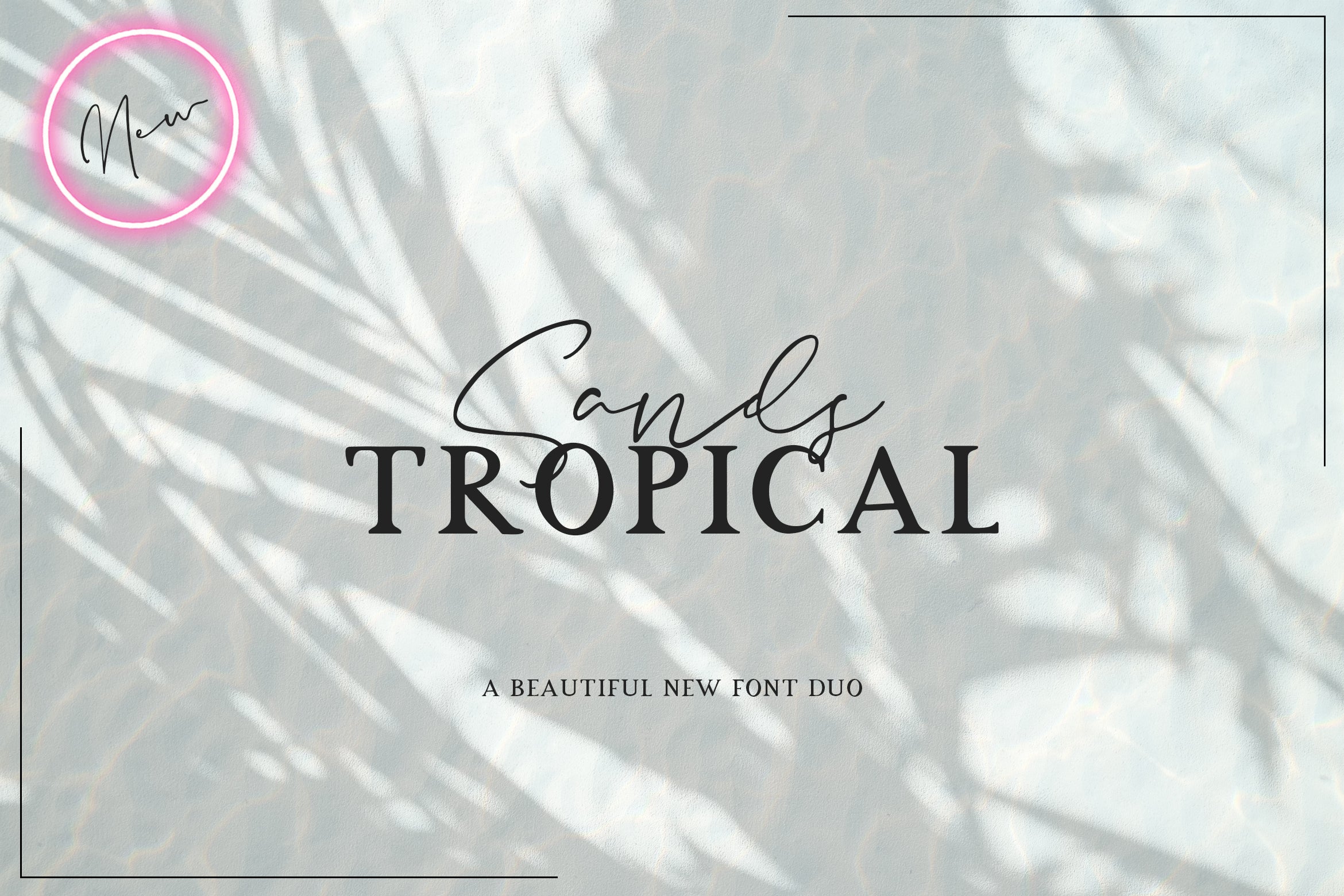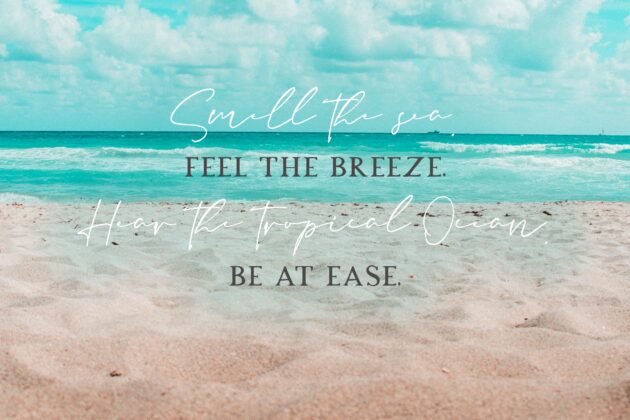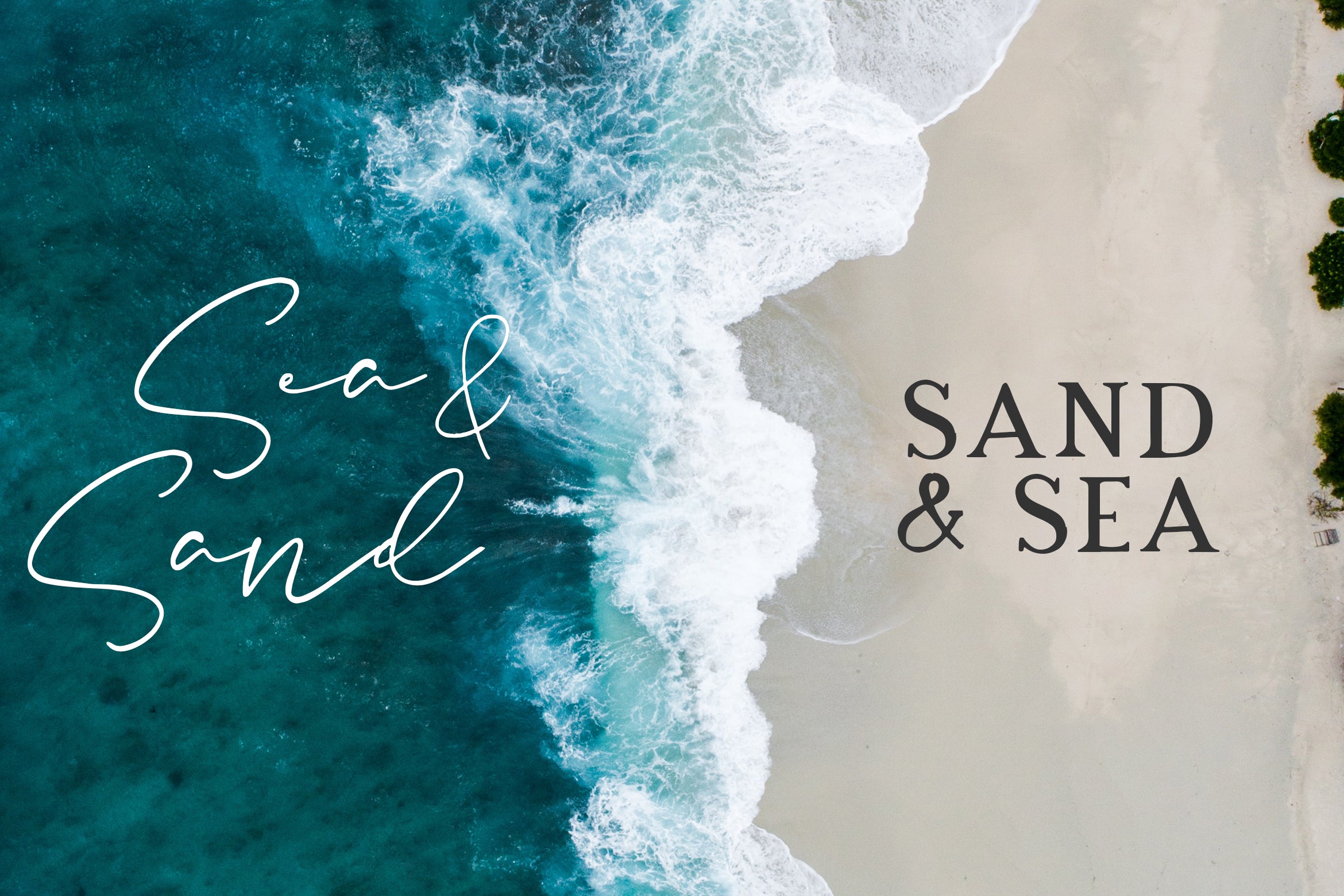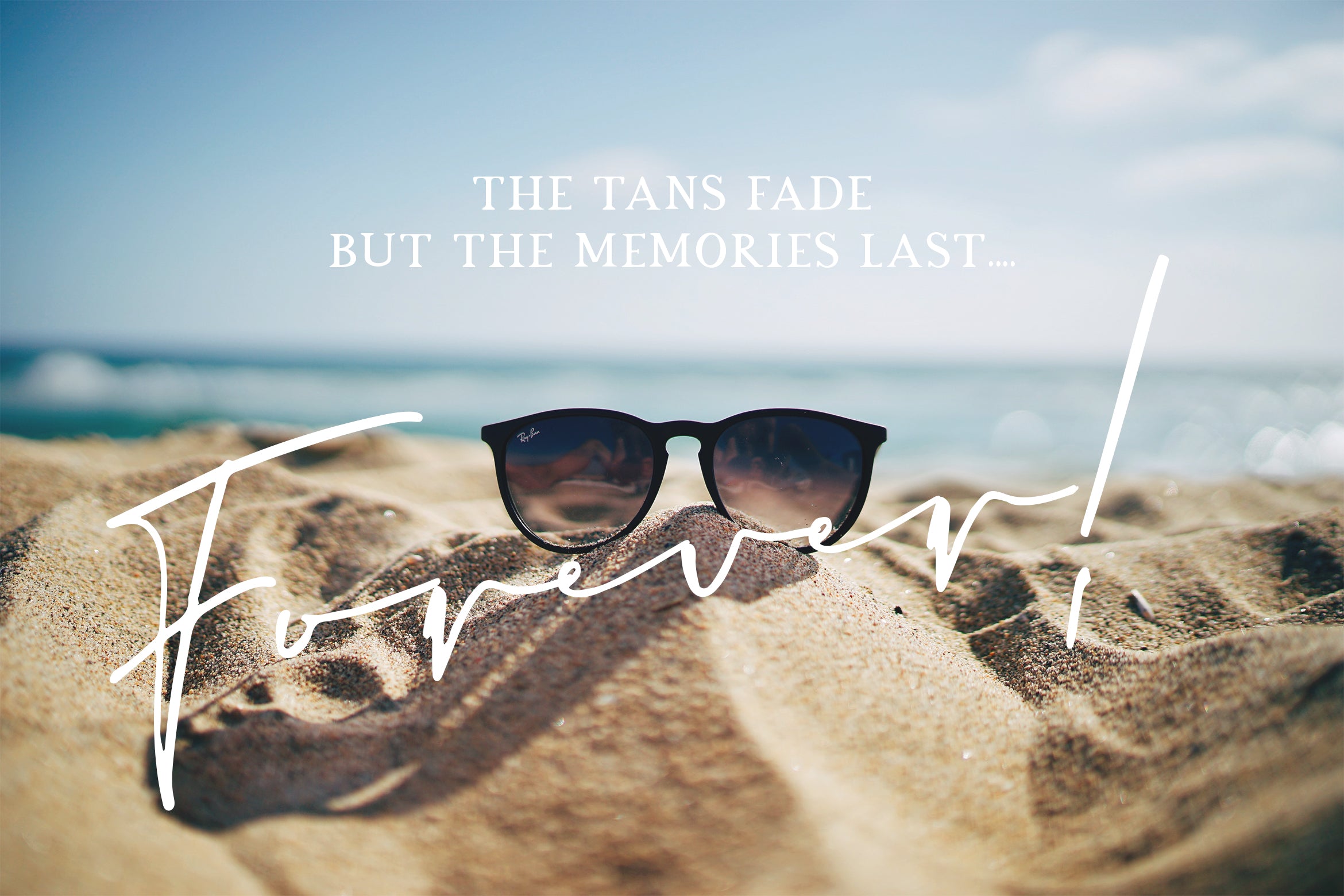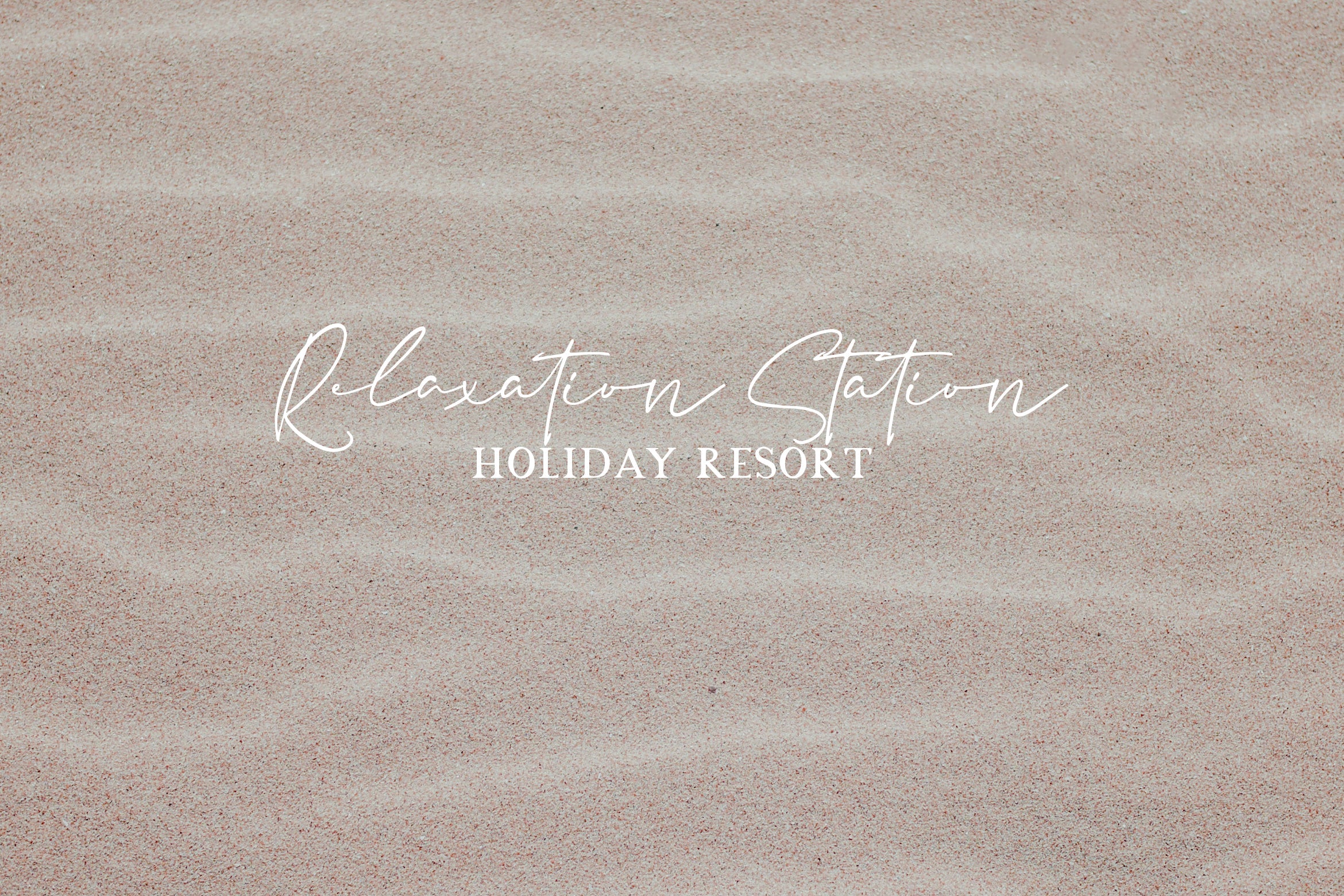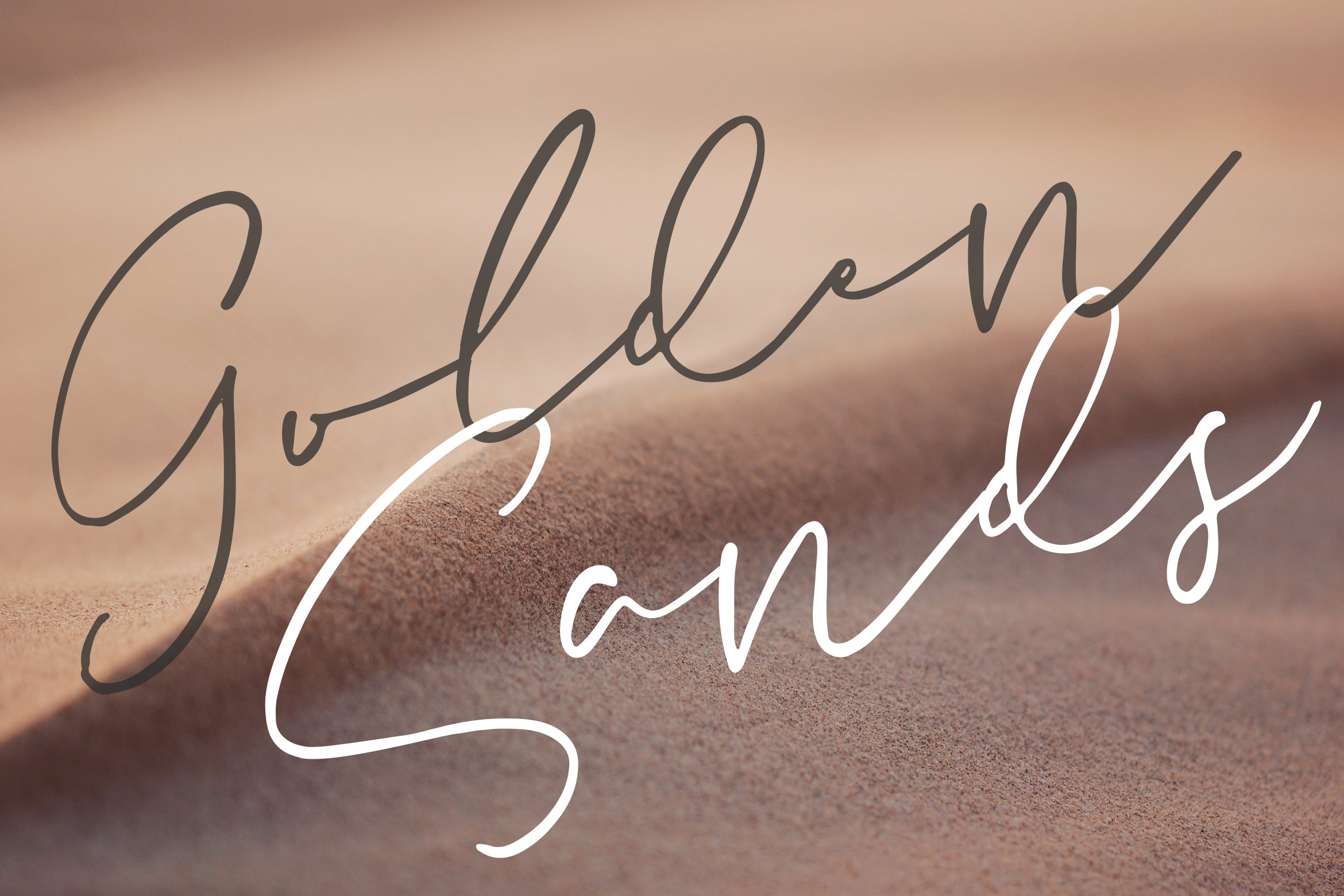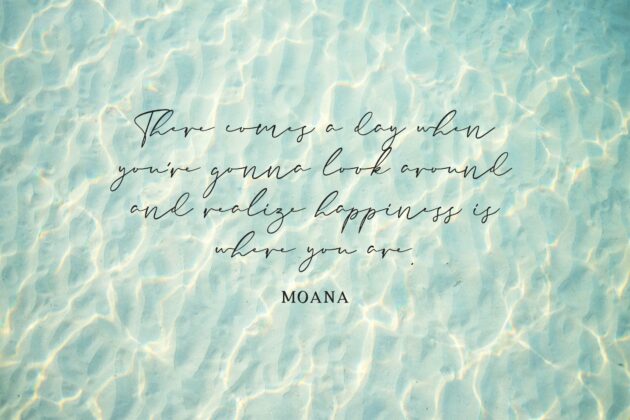
Sands Tropical Font Duo (Craft Fonts, Handwritten Fonts, Font Duos, Wedding Fonts)
Grab this stunning font duo now! A swirly, curly script and a strong serif that make a perfect pair! Whats Included: – Sands Tropical Script (OTF & TTF Format) – Sands Tropical Serif (OTF & TTF Format) – Commercial Licensing – Instant Download – Free Updates If you have any queries, questions or issues please don’t hesitate to contact us direct. Download within a few clicks and use across a huge range of programs including Silhouette, Cricut, SCAL, Photoshop, InDesign, Illustrator and Microsoft Word as well as many more.